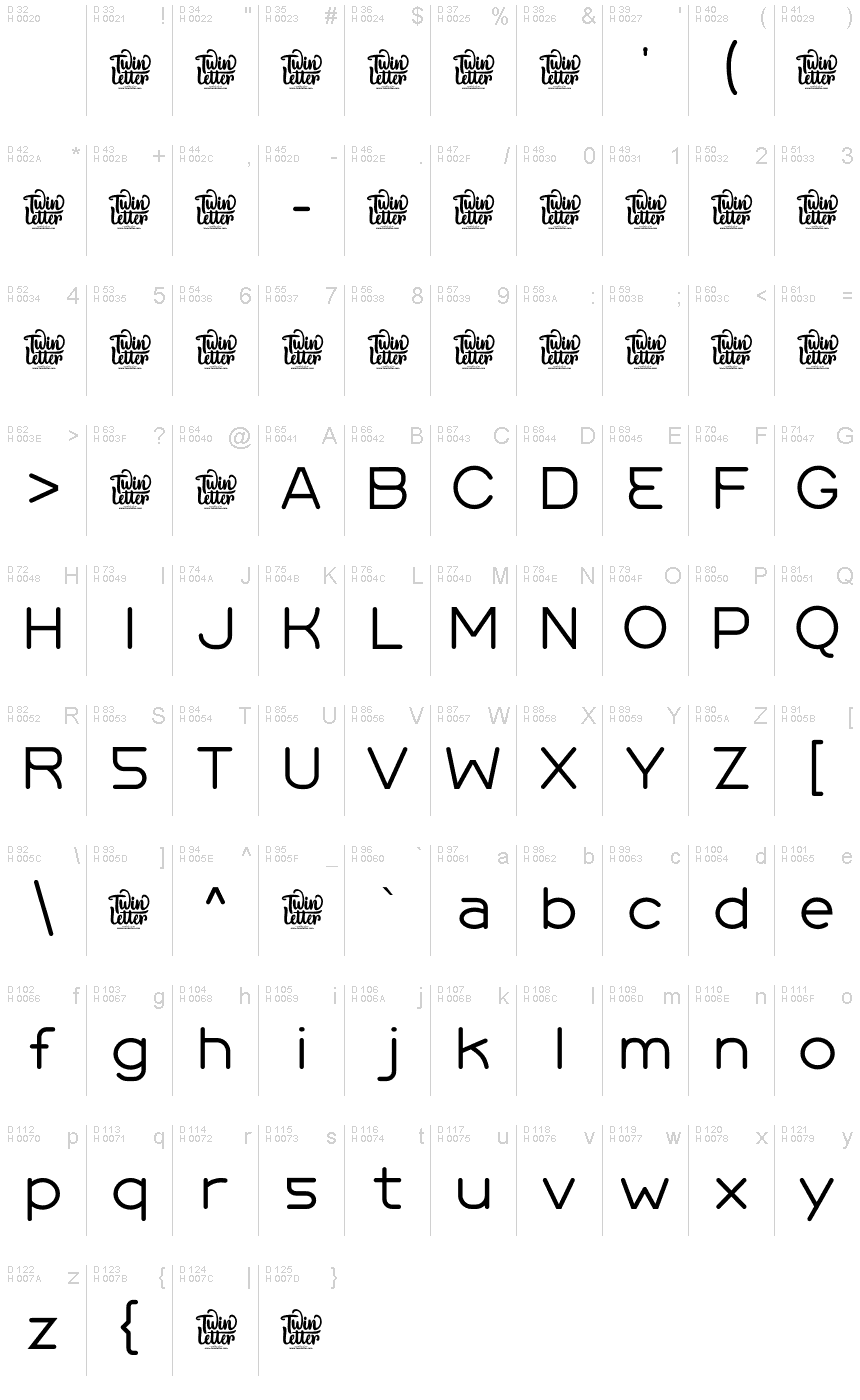
REBOG Personal Use
REBOG, the stunning sans serif font created by twinletter, is a perfect choice for projects that require a modern and professional look. Its semi-light weight and semi-expanded width make it easy to read while still being visually appealing. Whether you're designing a website, creating an advertisement, or crafting an eye-catching logo, REBOG will suit your needs. Its clean lines and contemporary style make it ideal for everything from business cards to billboards. So don't settle for a mediocre font - choose REBOG and take your designs to the next level!